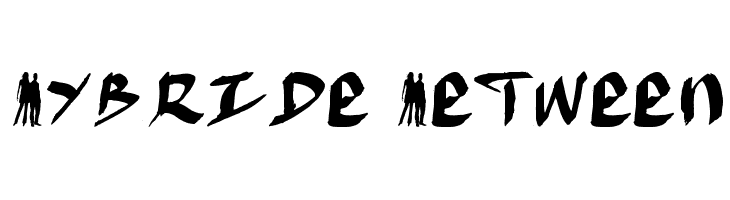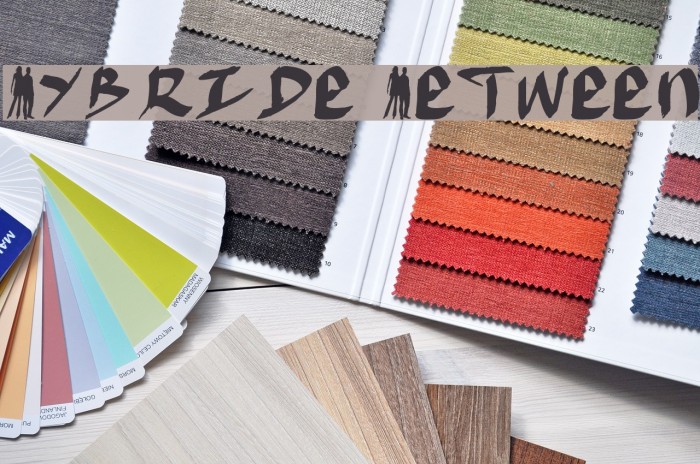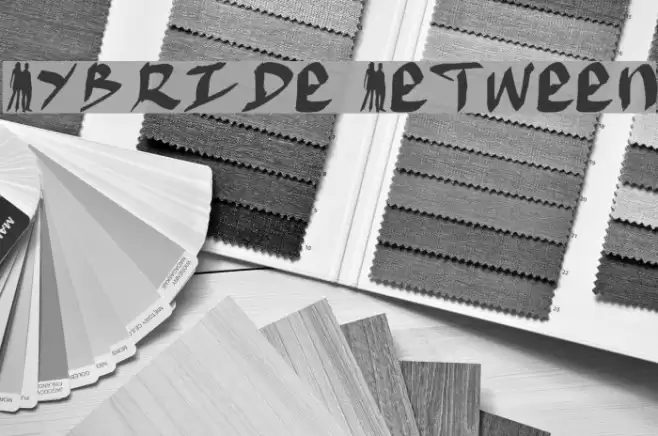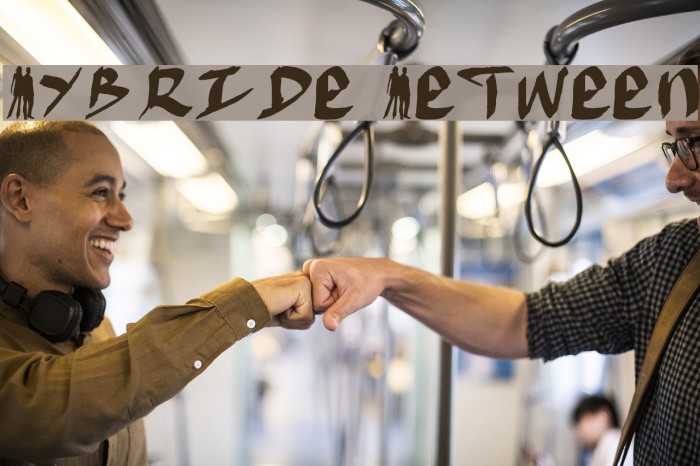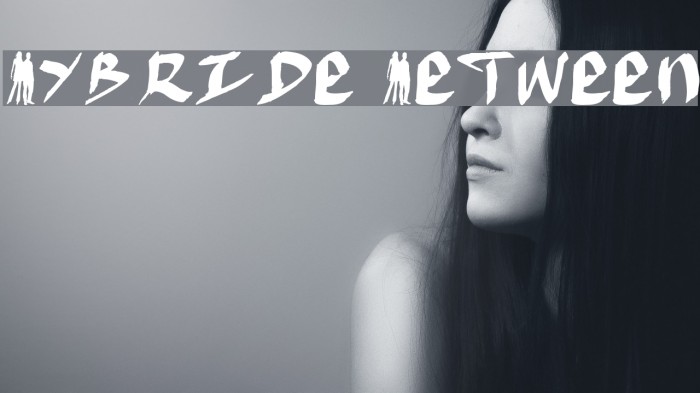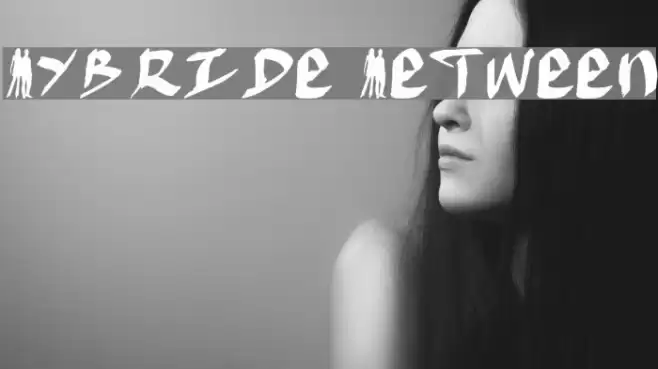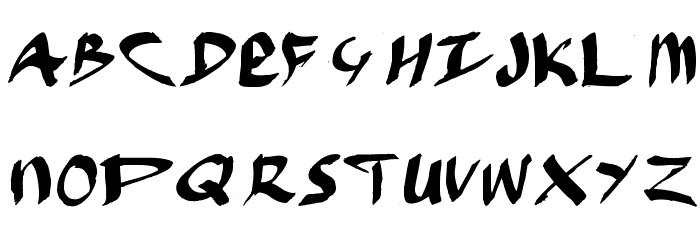
Hybride-Between Font
✎ Calligraphic
Hybride-Between Description
This font features a unique blend of artistic and abstract elements, with each character exhibiting a dynamic and fluid form. The uppercase letters are bold and expressive, with strokes that vary in thickness, creating a sense of movement and energy. The lowercase letters maintain this fluidity, offering a harmonious balance between the characters. The font's overall style is reminiscent of calligraphy, yet it retains a modern twist with its unconventional shapes and angles. The characters are slightly condensed, allowing for a compact and efficient use of space. This font is ideal for creative projects that require a distinctive and eye-catching typeface.
| Categories | Calligraphic |
| Width | Condensed |
| Use Case | Headlines, Logos, Artistic projects |
| Proposed Projects | Ideal for artistic posters, creative branding, unique invitations, and expressive headlines. |